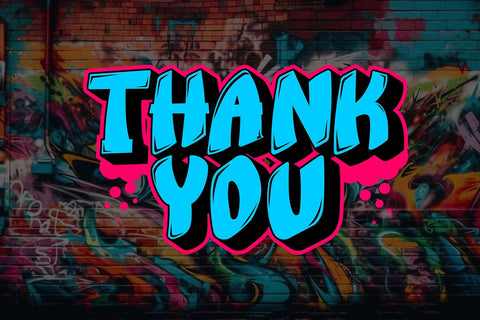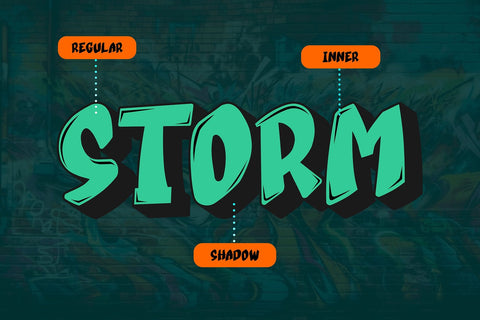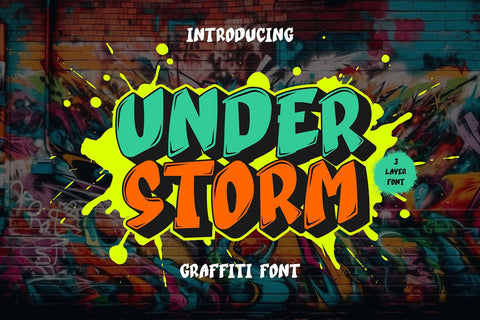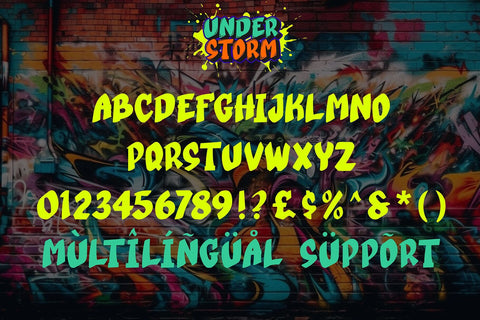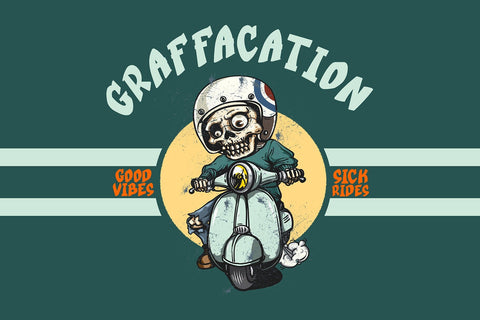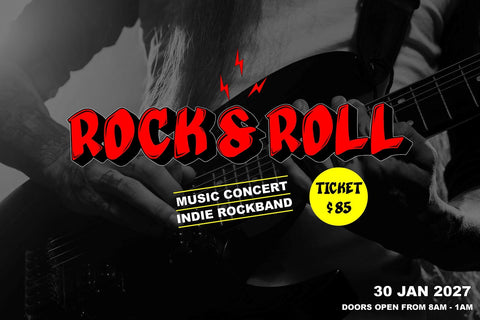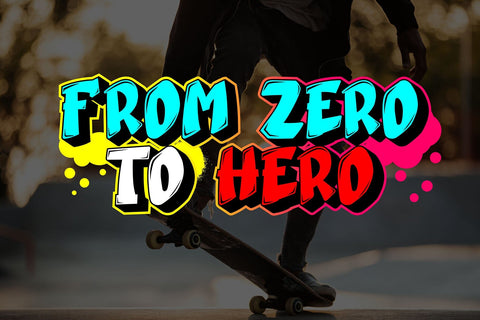
Under Strom - 3d Layered Graffiti Font
"Under Storm" is a graffiti font with three unique layers: regular, inner shadow, and outer shadow. This font is designed to add depth and dimension to your typography, creating a captivating and dynamic look. The regular layer provides a bold and impactful appearance, while the inner and outer shadow layers add a 3D effect, giving your designs an edgy and urban vibe. With its layered style, "Under Storm" is perfect for creating eye-catching street art, posters, and other urban-themed projects. Embrace the storm of creativity with this versatile and dynamic graffiti font.
- Graffiti Characters looks